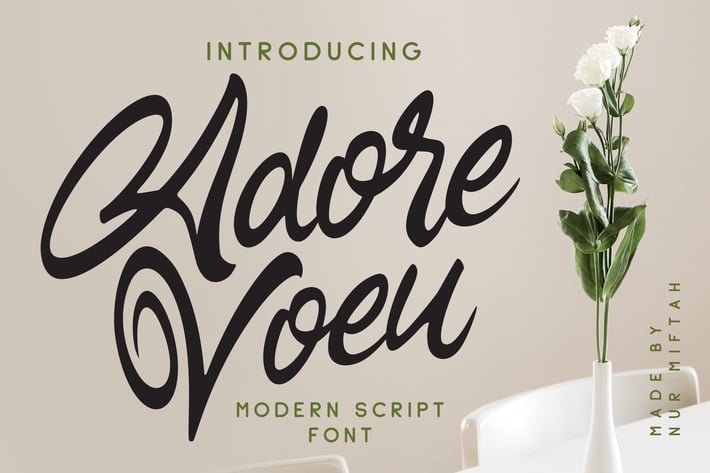
Adore Voeu - Modern Script Font
Adore Voeu Font can be used for various media like special events, Christmas, Valentine, invitation, packaging, poster, wedding, movie titles, book titles, social media, logos, branding, and others.